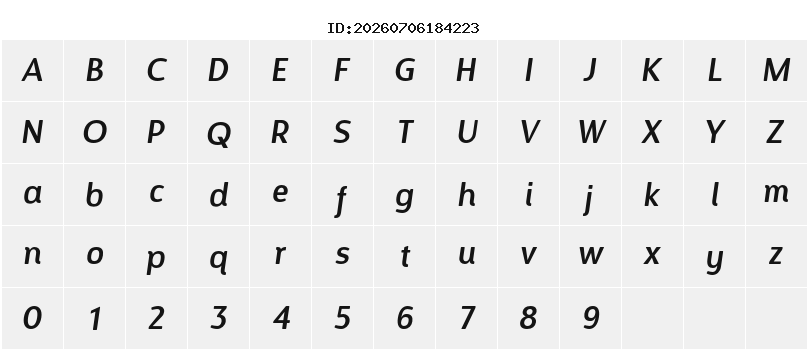
Designosaur Preview
• Font Name: Designosaur
• Font ID: SergiyS.Tkachenko: Designosaur Italic: 2011
• Full Font Name: Designosaur-Italic
• PostScript Name: Designosaur-Italic
• Character Count: 958
• Designer: Ткаченко Сергій Сергійович
• Manufacturer: Ткаченко Сергій Сергійович (Кременчук, Україна)
About Designosaur.otf
Designosaur.otf is a modern, elegant sans-serif font designed for ultimate readability and visual harmony. Perfect for branding, headlines, web design, and print materials.